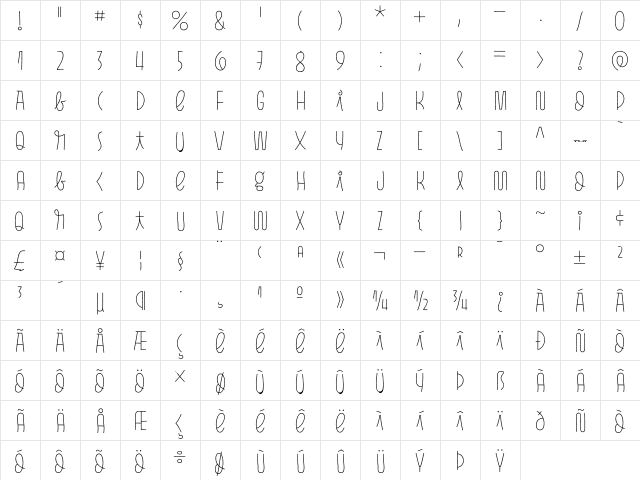
Pasto Print Thin
| Foundry | Julia Martinez Diana, Antipixel |
| Designer | Julia Martinez Diana, Antipixel |
Design Context for Pasto Typeface
Pasto is a composed and adaptable typeface that performs quietly and consistently across a wide range of design contexts. Its slender proportions lend an understated elegance to any composition.